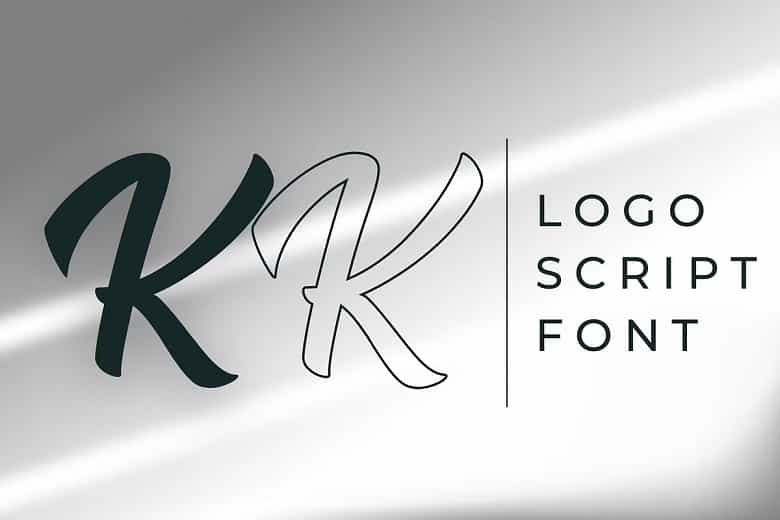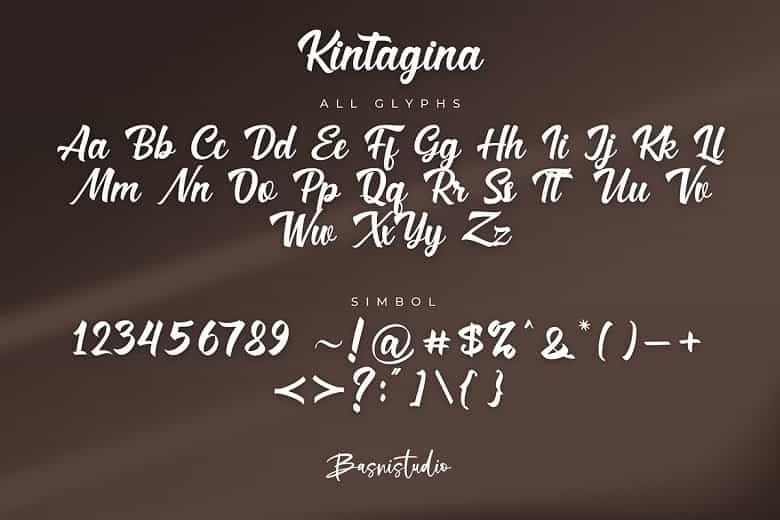
Discover Kintagina Font, part of the Script Logos collection—a versatile and unique font perfect for adding a personal touch to your projects. Download it for free and enjoy crafting designs with style, from invitations to social media posts. This font is available exclusively for personal use, giving you the freedom to create without limits. Unlock your creativity with Kintagina Font today!
In need of an elegant, charming or even a customized style to your designs? What a great font! Kintagina Logo Script Font is the best! Effortless Elegance: Crafted with precision the letters are designed to give a classic handwritten touch. Versatile Use: Great for designing wedding cards, logos, social media headers and many other uses.